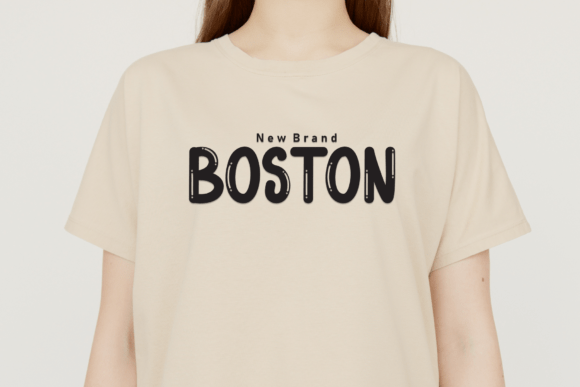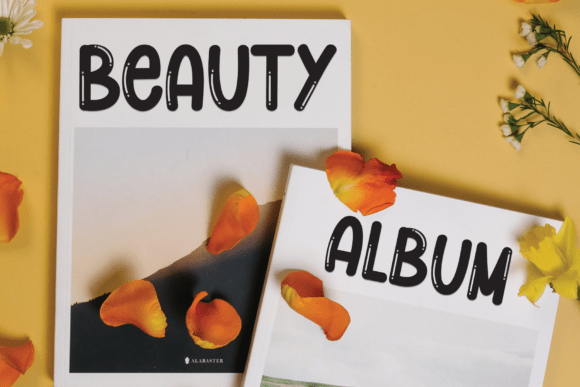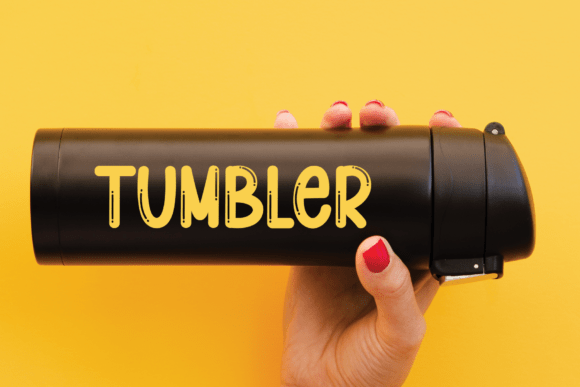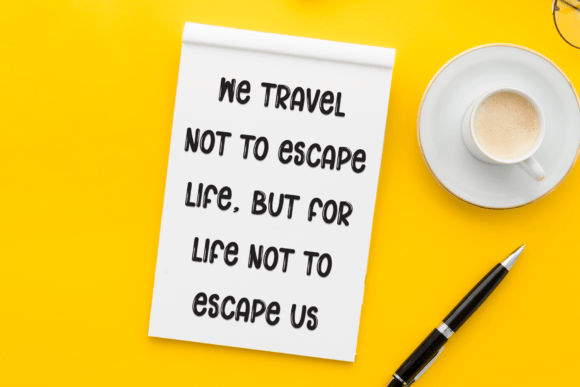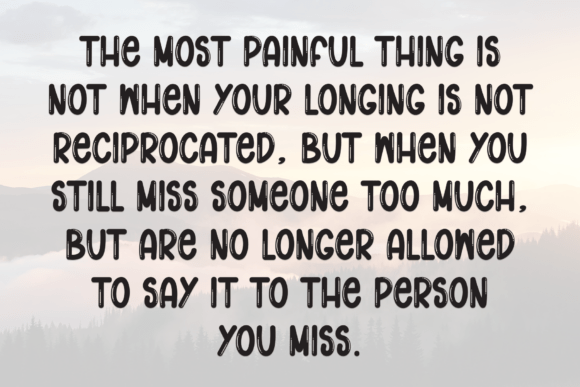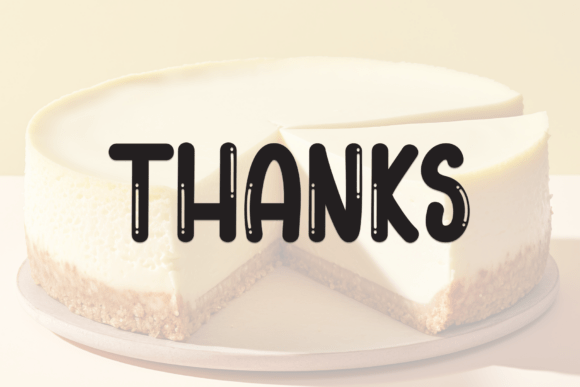
Meet the Font That’s the Cream of the Crop: Cake Cheese Font
Do you remember the thrill of rummaging through your grandmother’s dusty attic, unearthing a treasure trove of vintage invitations and greeting cards? The intricate designs, the delicate handwriting, and the warmth of the past all came alive in those forgotten keepsakes. It’s moments like these that spark the creative flame within us, inspiring us to create something truly special.
For designers seeking to infuse their projects with a dash of whimsy and charm, the Cake Cheese Font is the perfect companion. This exclusive typeface is designed to add a touch of artisan elegance to any design project, making it a favorite among wedding invitation designers and greeting card artists. With its lively energy and imaginative brilliance, the Cake Cheese Font is a valuable addition to any designer’s toolkit.
Cake Cheese Font Key Features
- Font Family: Cake Cheese is a unique, hand-drawn font with a playful and whimsical feel.
- Character Set: The font includes a wide range of characters, including uppercase and lowercase letters, numbers, and punctuation marks.
- Unique Characteristics: Cake Cheese Font features a distinctive, hand-painted style with subtle texture and imperfections, giving it a one-of-a-kind look.
Cake Cheese Font Review
Overall, I think Cake Cheese Font is an interesting and quirky addition to any design project. It’s ✨ fun to use and adds a playful touch to text. The font is perfect for creating eye-catching headlines or titles that stand out from the rest.
Here are some of the things that I like about Cake Cheese Font:
- ✨ Unique and playful design that grabs attention
- ✨ Perfect for creating a fun and lighthearted atmosphere
- ✨ Great for use in social media posts, advertising, or marketing materials
However, there are a few limitations that I’d like to point out:
- ⚠️ Limited character set and font sizes, which can make it difficult to use in longer blocks of text
- ⚠️ May not be suitable for use in formal or professional settings
- ⚠️ Can be a bit overwhelming or distracting if used too extensively
Overall, I’d say that Cake Cheese Font is a great addition to any designer’s toolkit, but it’s best used in moderation and in the right context. With a little creativity and restraint, it can add a lot of fun and personality to a design project.
Cake Cheese Font: A Practical Application Guide
To get the most out of the Cake Cheese Font, use it for creative projects that require a playful and whimsical touch. Experiment with different font sizes, colors, and styles to create unique and eye-catching designs.
The Cake Cheese Font is perfect for:
- Birthday invitations and party decorations
- Wedding stationery and wedding decorations
- Food and dessert branding and packaging
Alternatives to Cake Cheese Font
Ostrich Sans is a modern sans-serif font with a friendly and approachable feel. It’s suitable for body text and titles in a wide range of designs, from casual to professional. Compared to Cake Cheese Font, Ostrich Sans has a more straightforward and easy-to-read style, making it a great choice for projects where legibility is key.
Lato is a clean and elegant sans-serif font with a strong focus on readability. It’s a great choice for titles, headings, and body text in designs that require a professional and sophisticated look. Unlike Cake Cheese Font, Lato has a more streamlined and modern aesthetic, making it suitable for a wide range of industries and designs.
Open Sans is a highly legible sans-serif font that’s perfect for body text and titles in designs that require a clean and modern look. It’s a great choice for projects that need a neutral and versatile font that works well in a variety of contexts. Compared to Cake Cheese Font, Open Sans has a more minimalist and straightforward style, making it a great choice for projects that require a lot of text.